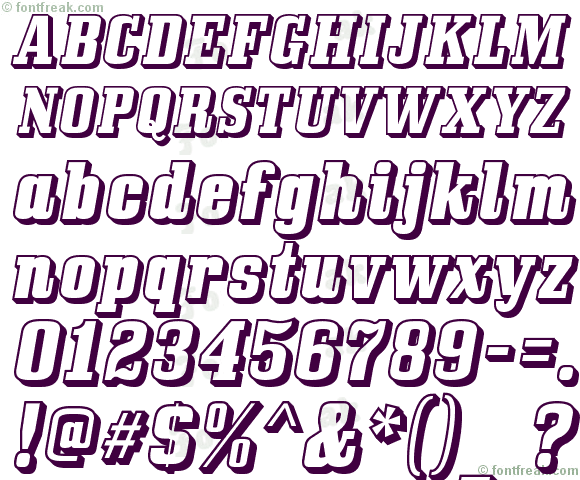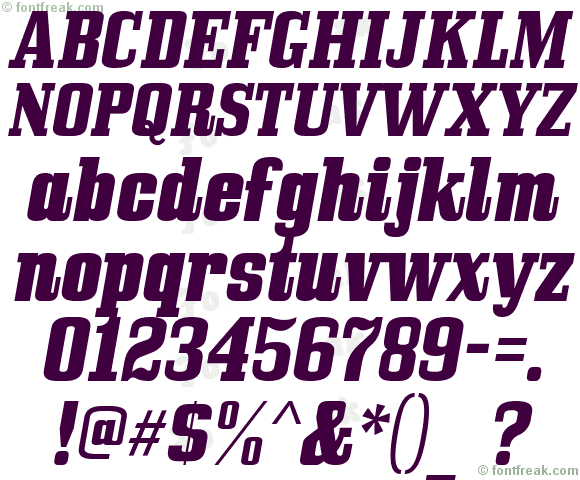
Bullpen 3D
Bullpen Italic
Bullpen
About Bullpen
The Bullpen font by Ray Larabie is a striking display typeface that captures attention with its bold, three-dimensional design. Released in 2001 and later updated in 2004, this freeware font boasts a unique aesthetic that balances modern appeal with a playful flair. The visual characteristics include a substantial stroke weight and minimal contrast, which enhance its legibility while maintaining a strong presence. The overall spacing is well-considered, making it suitable for various applications. The decorative elements, including rounded edges and a slightly exaggerated form, lend an inviting and friendly tone to any project.
The Bullpen font excels in a variety of use cases. It is perfect for eye-catching movie posters that require a punchy headline, as well as restaurant menus that aim to create a casual yet stylish atmosphere. Its playful nature makes it an excellent choice for branding materials targeting a younger audience, such as skate shops or trendy cafes. Additionally, this font can be effectively used in event promotions, such as music festivals or community gatherings, where a vibrant and energetic vibe is desired.
The target audience for the Bullpen font includes graphic designers looking for a distinctive typeface, small business owners aiming to enhance their branding, and content creators seeking an engaging visual style for their projects. By utilizing this font, they can create designs that stand out in a crowded marketplace.
What truly sets the Bullpen font apart is its unique combination of boldness and friendliness, making it an ideal choice for those looking to inject personality into their designs. With the Bullpen font free download available, you can easily incorporate this versatile typeface into your next project and elevate your creative work.